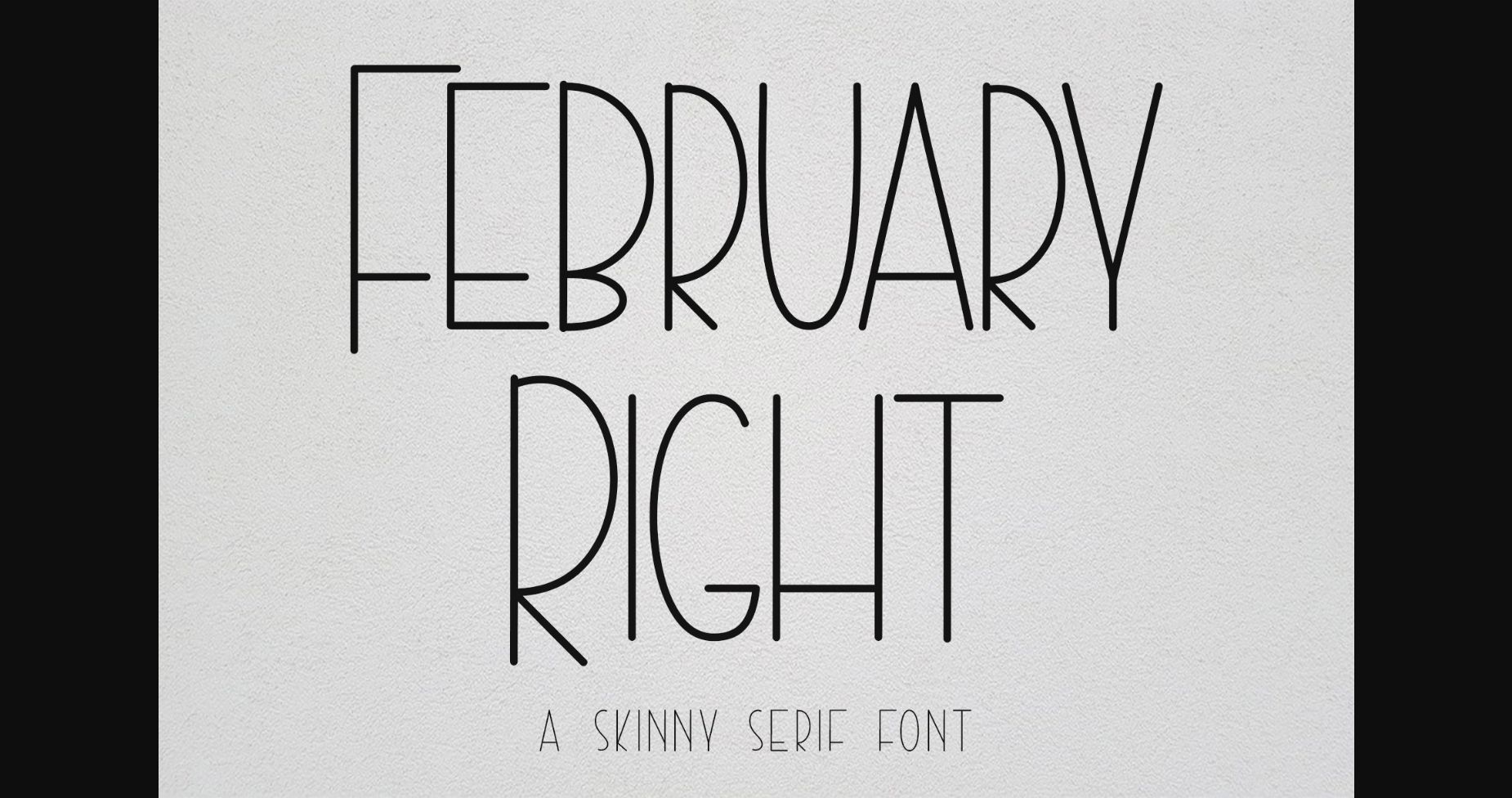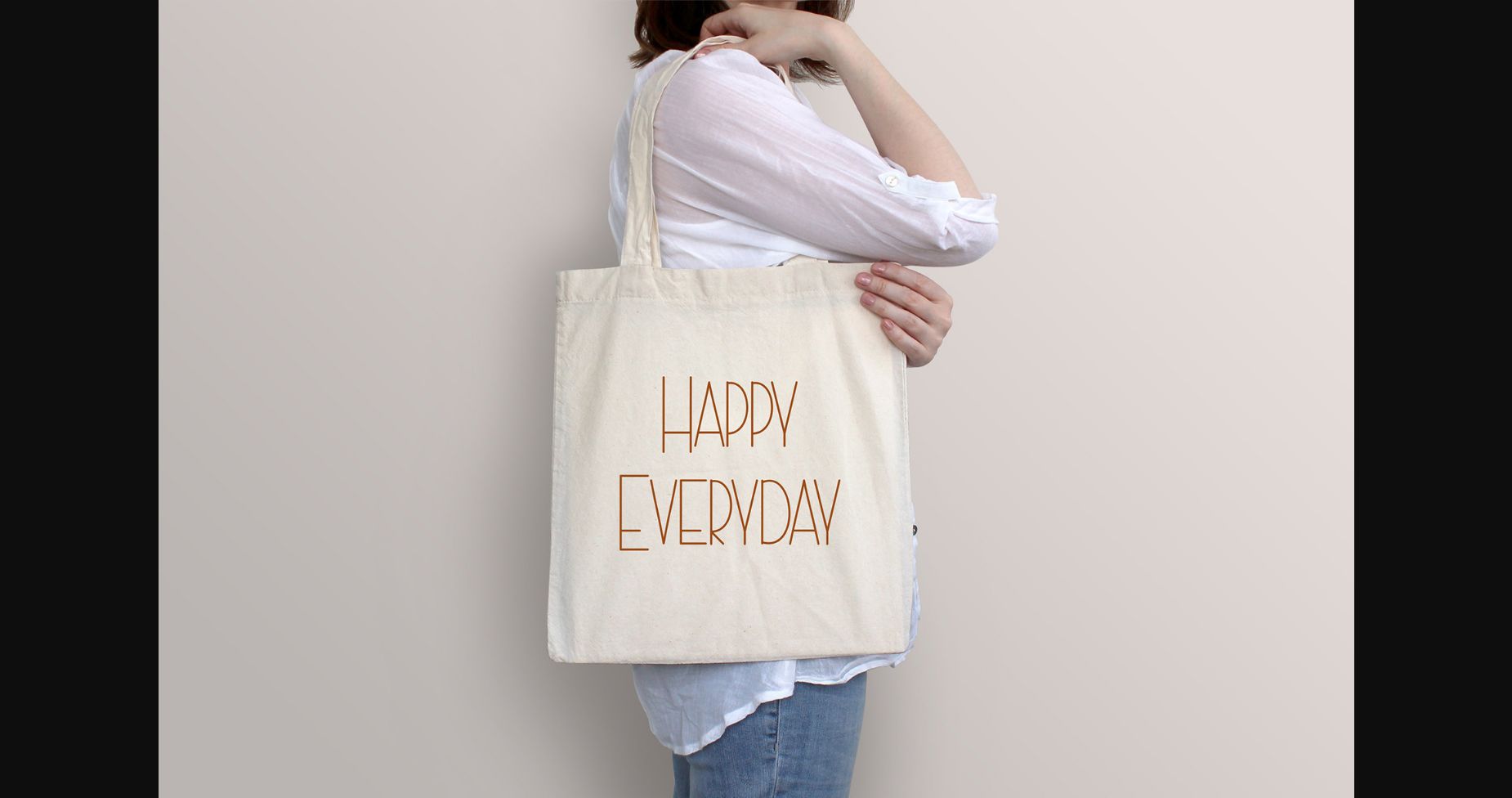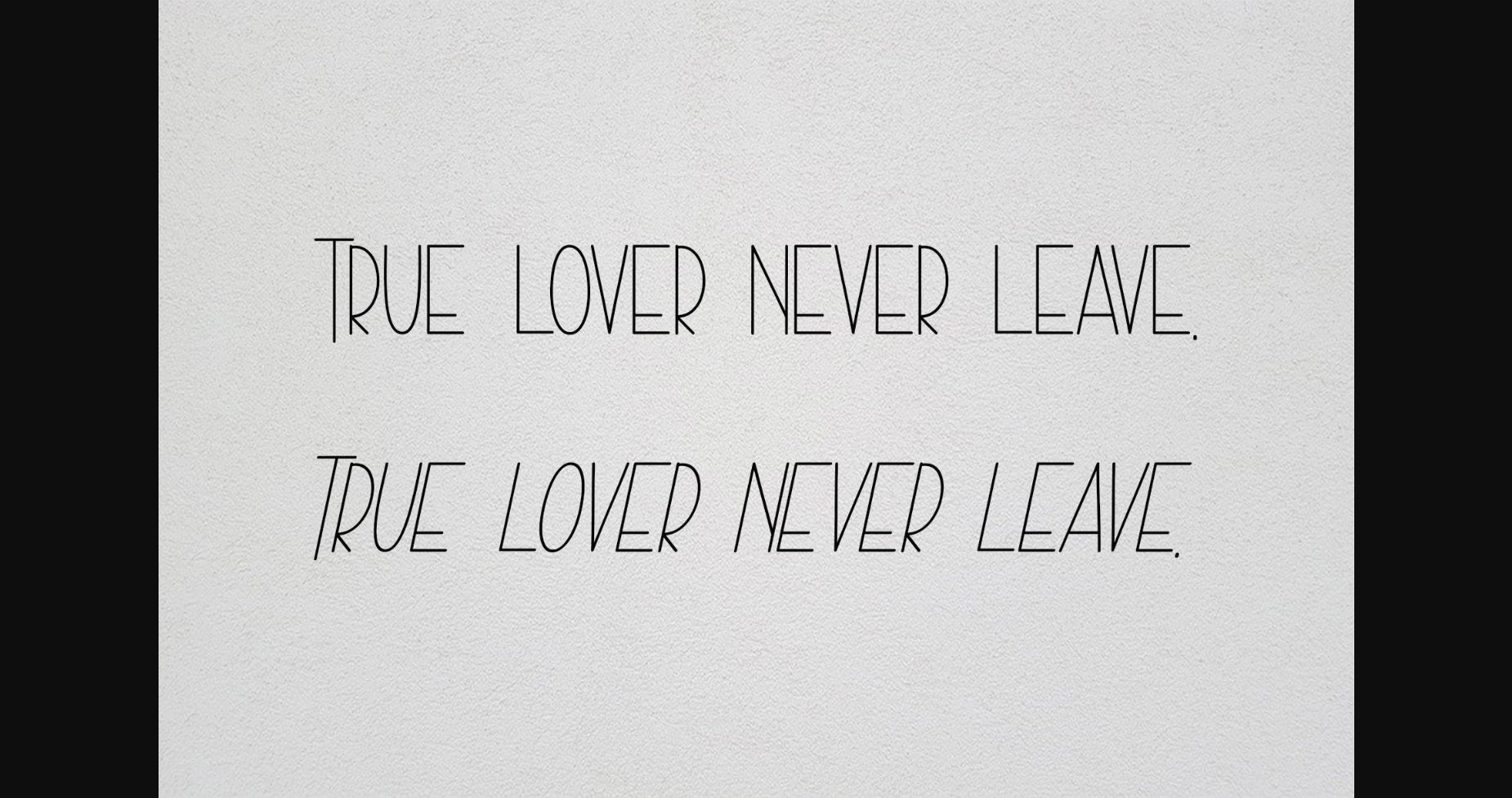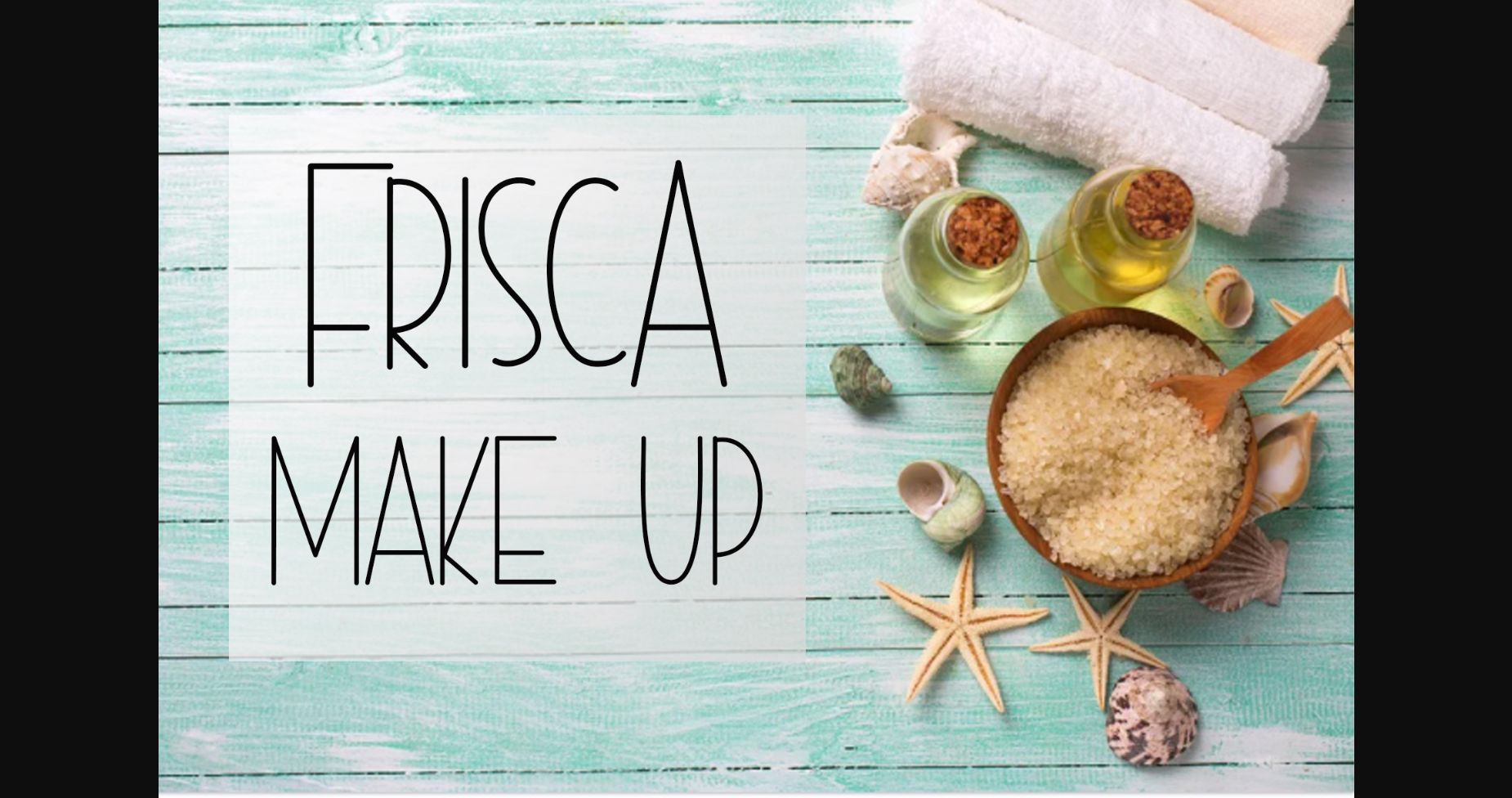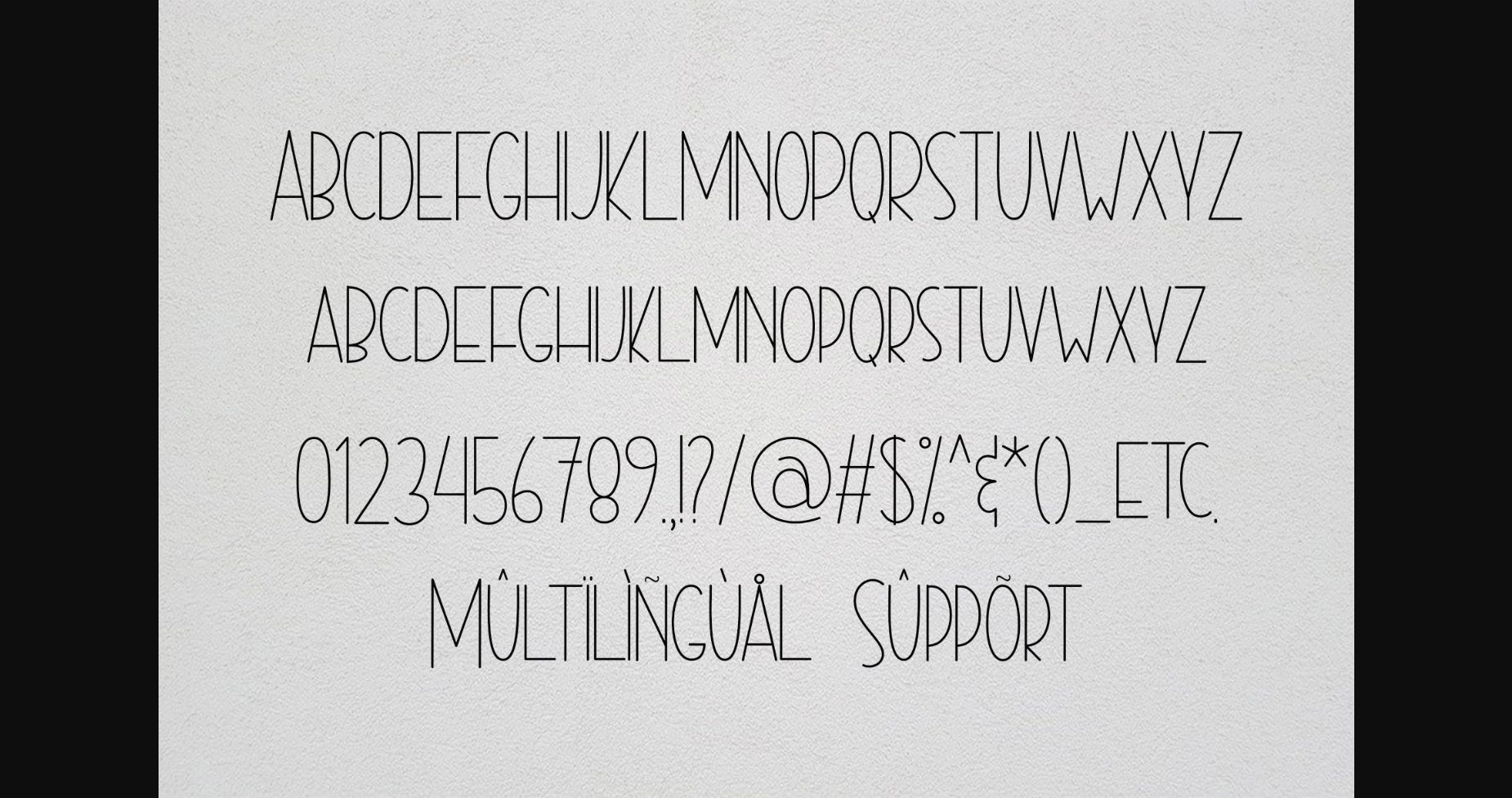
February Right Font
About February Right Font
February Right is a skinny and tall lettered sans serif font that can be used for many kinds of design-project! Its authentic look will add a personal and realistic feel to all of your designs.